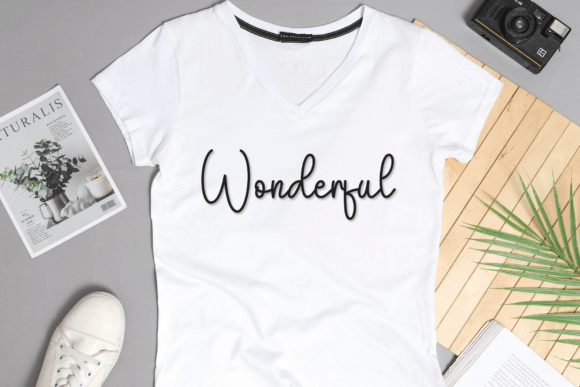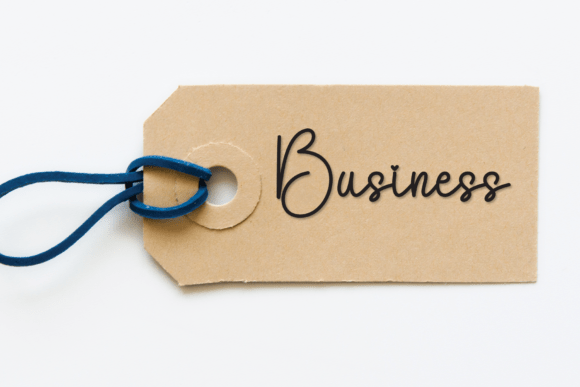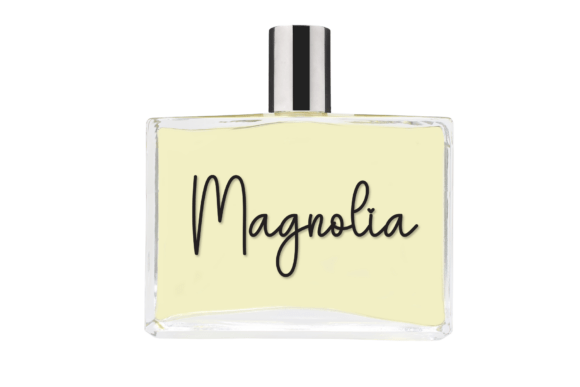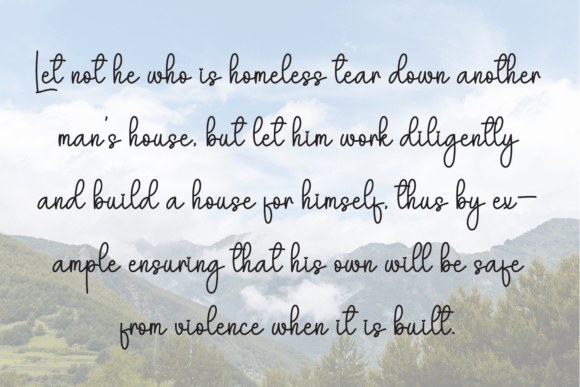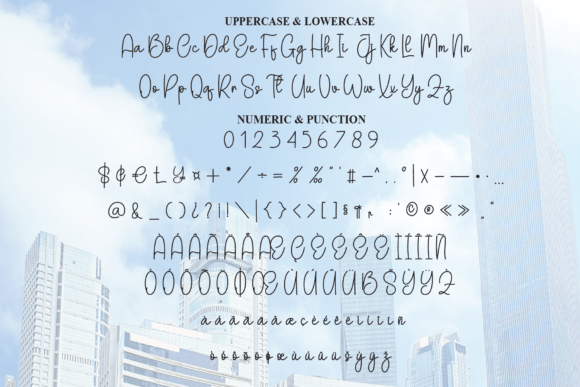
Introducing Building Font: The Ultimate Display Typeface for Adding Warmth and Charm
Are you tired of using the same old fonts in your designs? Do you want to add a touch of warmth and friendliness to your creations? Look no further than Building Font, a hand-rendered display typeface that is sure to captivate your audience. With its unique blend of lightheartedness and delight, this fun and stylish typeface is perfect for designers and crafters looking to inject an appealing charm into any composition.
The Enchanting Appeal of Building Font
Building Font is more than just a typeface – it’s an experience. Its hand-rendered design gives it a personal and human touch, emanating undeniable warmth and friendliness. This enchanting appeal makes it perfect for crafting emotional wedding invites, fanciful cards, and other designs that require a touch of whimsy and charm. Whether you’re a designer, crafter, or DIY enthusiast, Building Font is sure to bring your creations to life.
A Perfect Blend of Lightheartedness and Delight
What sets Building Font apart from other typefaces is its ideal mix of lightheartedness and delight. This skillfully designed typeface seamlessly blends in a fanciful charm that’s simply captivating. With Building Font, you can add a touch of playfulness and fun to your designs, making them more engaging and memorable. Whether you’re creating a wedding invitation, a greeting card, or a social media graphic, Building Font is the perfect choice.
Perfect for Crafting Emotional Wedding Invites and Fanciful Cards
Building Font is perfectly suited for crafting emotional wedding invites and fanciful cards. Its charming and whimsical design makes it ideal for special occasions that require a personal touch. With Building Font, you can create beautiful and unique wedding invitations, save-the-date cards, and other stationery that will leave a lasting impression on your loved ones. Additionally, its playful and fun design makes it perfect for creating fanciful cards for birthdays, holidays, and other celebrations.
Bring Your Designs to Life with Building Font
Building Font is more than just a typeface – it’s a design tool that can help you bring your creations to life. With its captivating and motivating design, you can create designs that inspire and delight your audience. Whether you’re a designer, crafter, or DIY enthusiast, Building Font is the perfect choice for anyone looking to add a touch of magic to their designs. So why settle for ordinary fonts when you can create extraordinary designs with Building Font?
Key Features of Building Font
- Hand-rendered display typeface with a personal and human touch
- Unique blend of lightheartedness and delight
- Perfect for crafting emotional wedding invites and fanciful cards
- Seamlessly blends in a fanciful charm that’s simply captivating
- Perfect for designers, crafters, and DIY enthusiasts
In conclusion, Building Font is the ultimate display typeface for adding warmth and charm to your designs. With its enchanting appeal, perfect blend of lightheartedness and delight, and captivating design, it’s the perfect choice for designers, crafters, and DIY enthusiasts. So why wait? Download Building Font today and bring your designs to life with its magical and whimsical charm.